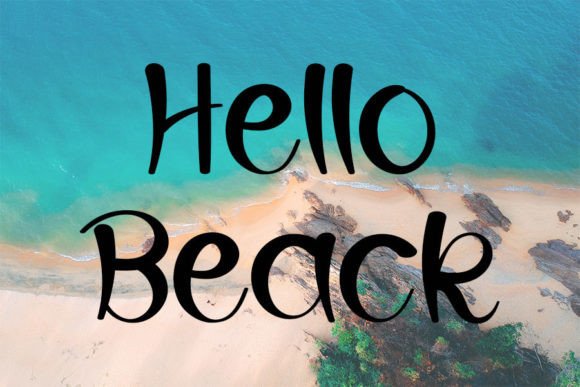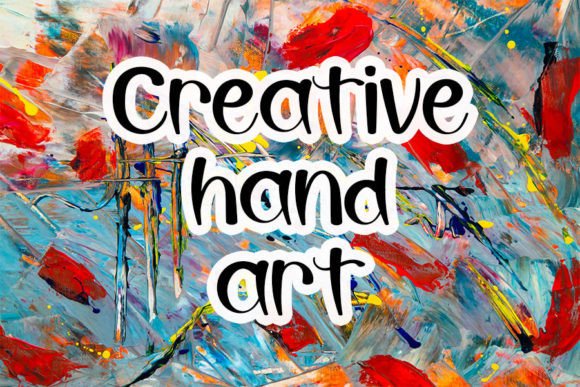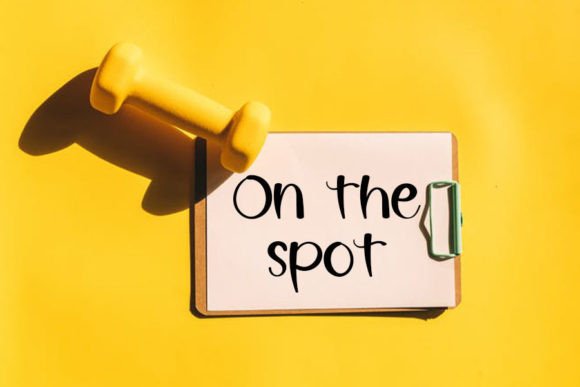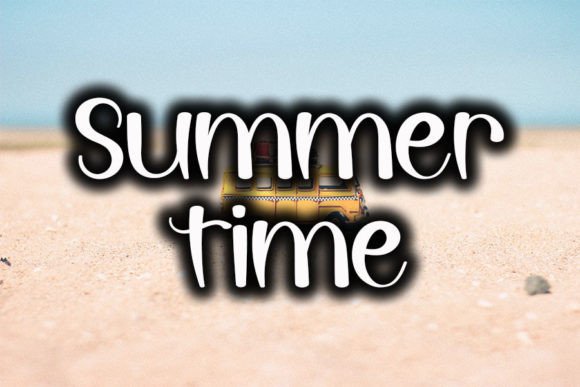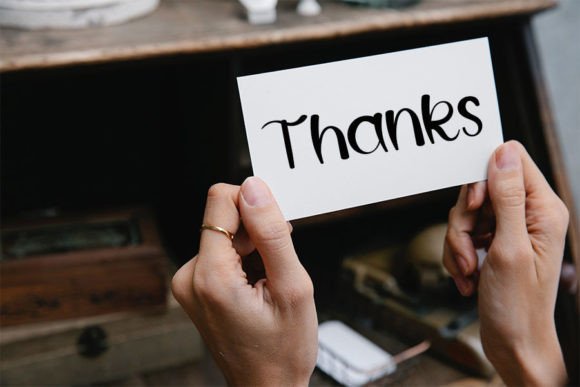
Introducing Amnesia Font: The Perfect Choice for Romantic and Delicate Designs
Are you a designer or crafter looking for a font that exudes romance and elegance? Look no further than Amnesia Font, a slim and delicate handwritten font that is sure to capture the hearts of those who see it. With its dainty and joyful feel, Amnesia Font is the ideal choice for writing wedding invitations, cards, or any other design that may need a romantic, personalized touch.
What Makes Amnesia Font So Special?
Amnesia Font is a unique and beautiful handwritten font that is characterized by its slim and delicate strokes. The font’s dainty feel makes it perfect for designs that require a touch of elegance and sophistication. Whether you’re creating wedding invitations, greeting cards, or other paper crafts, Amnesia Font is sure to add a romantic and personalized touch to your designs.
Key Features of Amnesia Font
- Slim and delicate strokes: Amnesia Font features slim and delicate strokes that give it a dainty and elegant feel.
- Handwritten feel: The font has a handwritten feel that makes it perfect for designs that require a personal touch.
- Romantic and elegant: Amnesia Font is the perfect choice for designs that require a romantic and elegant feel, such as wedding invitations and greeting cards.
- Versatile: The font is versatile and can be used for a variety of designs, from paper crafts to digital designs.
Uses for Amnesia Font
Amnesia Font is a versatile font that can be used for a variety of designs, including:
- Wedding invitations: The font’s romantic and elegant feel makes it perfect for wedding invitations and other wedding-related designs.
- Greeting cards: Amnesia Font is ideal for creating greeting cards for special occasions, such as birthdays, anniversaries, and holidays.
- Paper crafts: The font is perfect for paper crafts, such as scrapbooking, journaling, and card making.
- Digital designs: Amnesia Font can also be used for digital designs, such as social media graphics, blog posts, and website headers.
Tips for Using Amnesia Font
Here are some tips for using Amnesia Font in your designs:
- Pair with other fonts: Amnesia Font can be paired with other fonts to create a unique and interesting design.
- Use a subtle color: The font looks best in subtle colors, such as pastels or neutrals.
- Add embellishments: Amnesia Font can be paired with embellishments, such as flowers or hearts, to add a romantic touch to your designs.